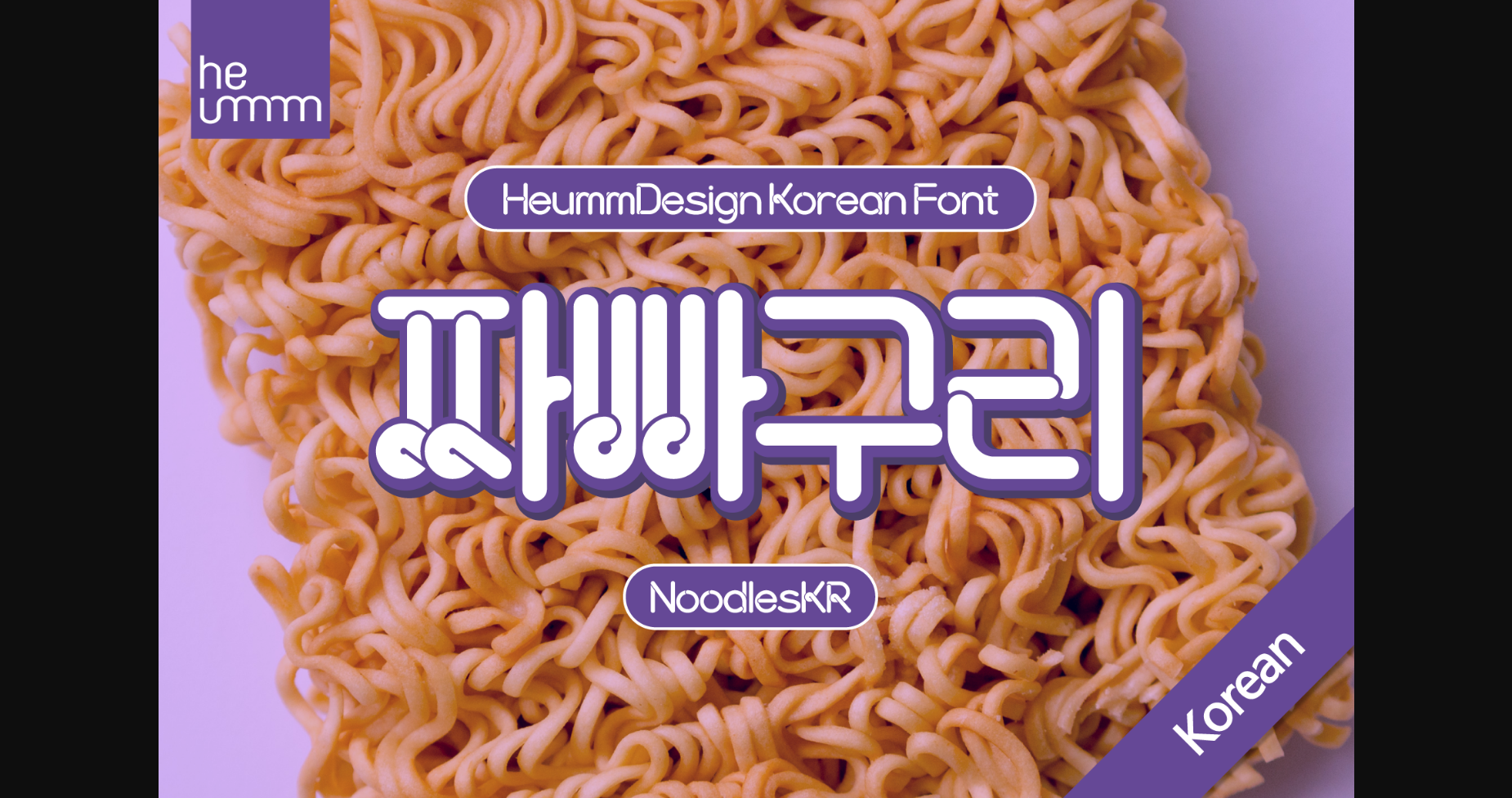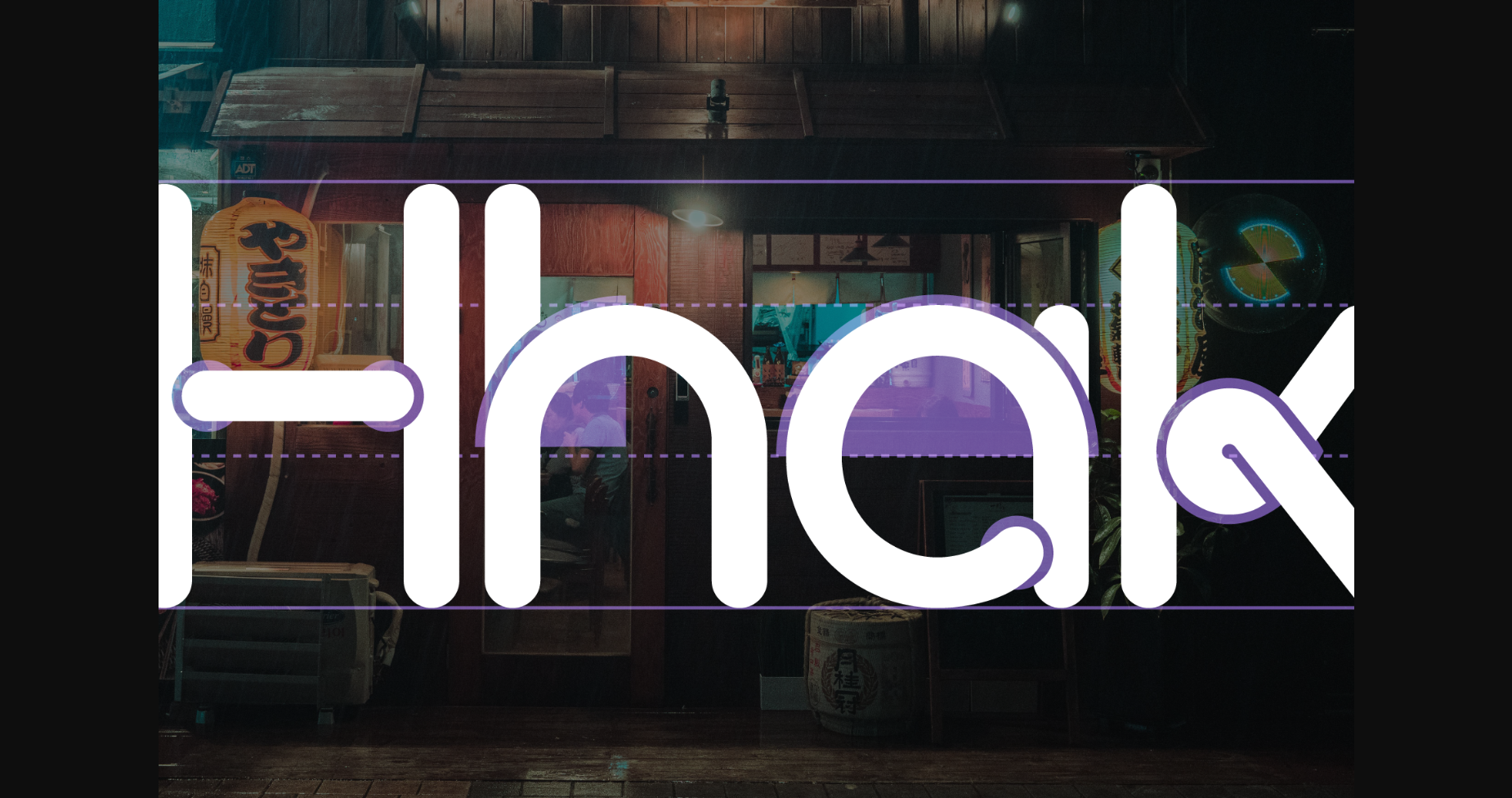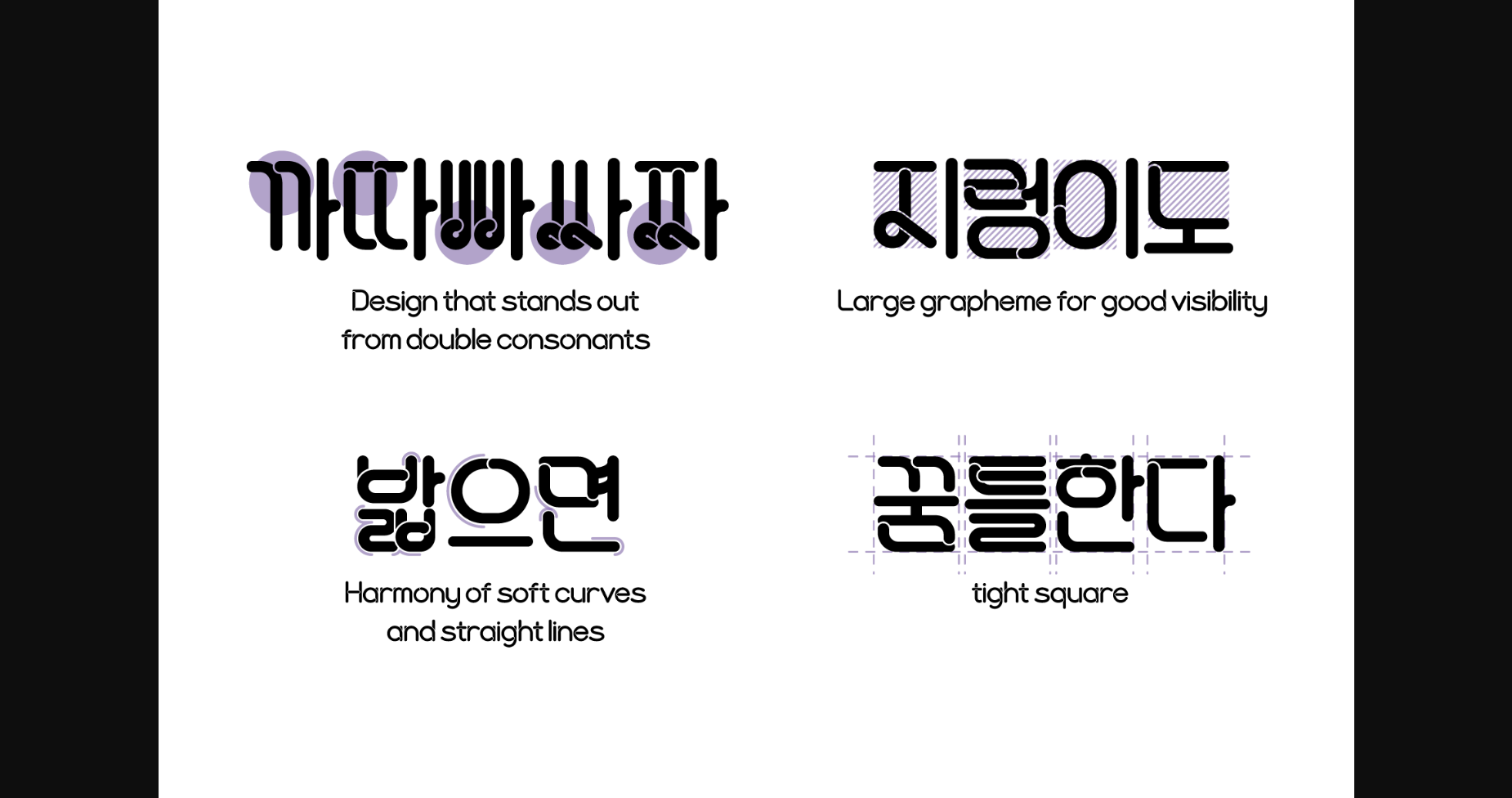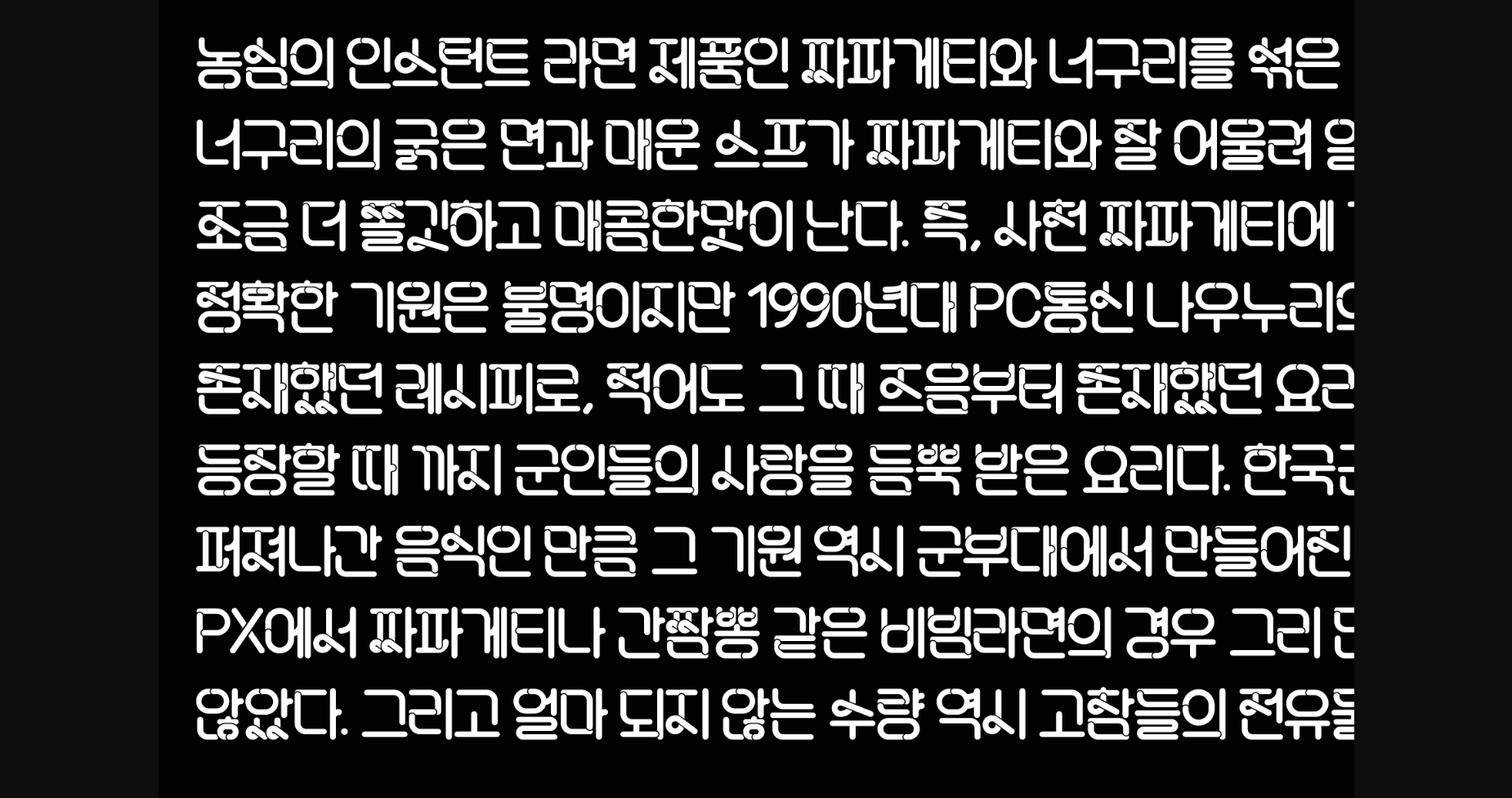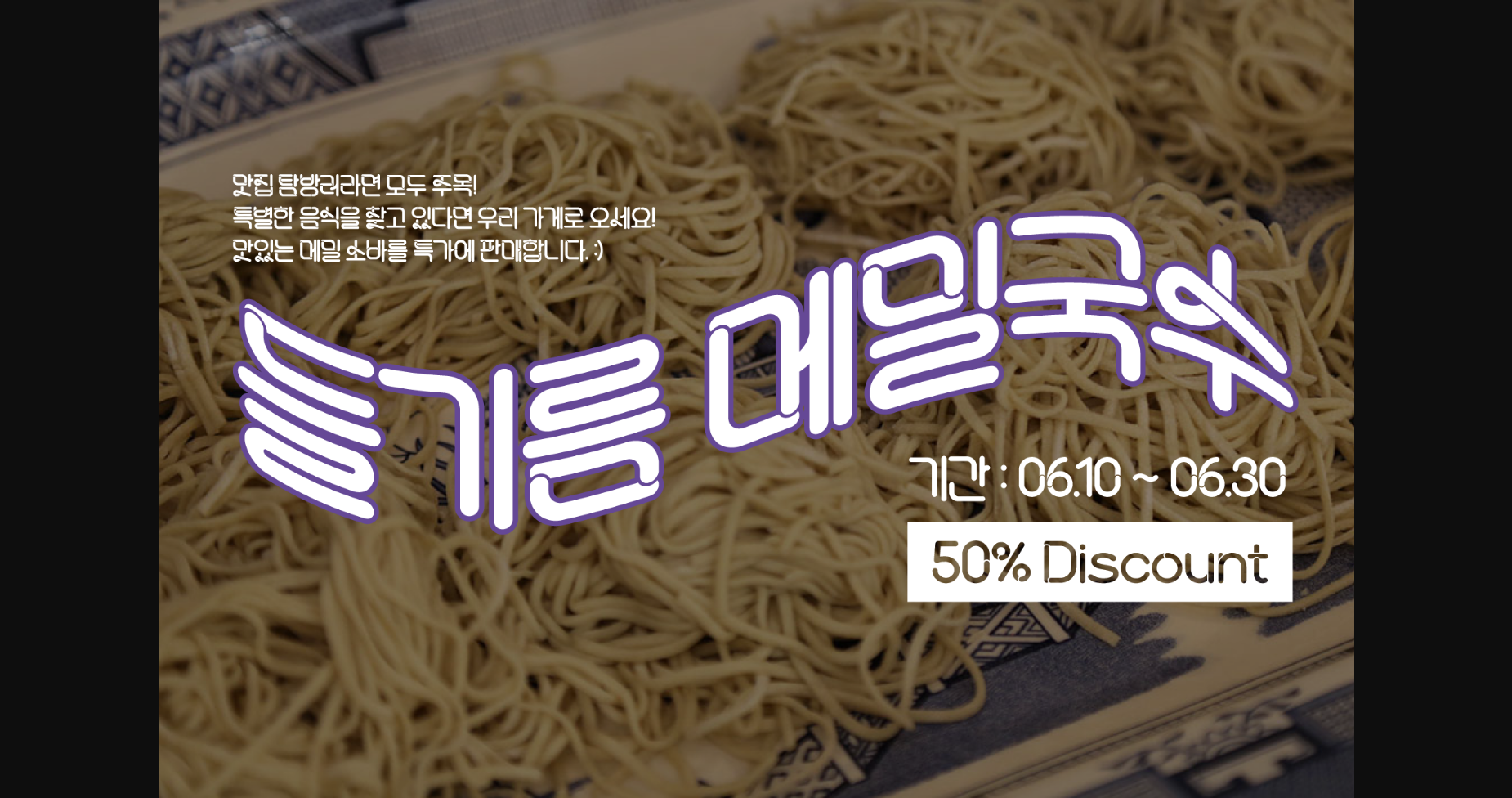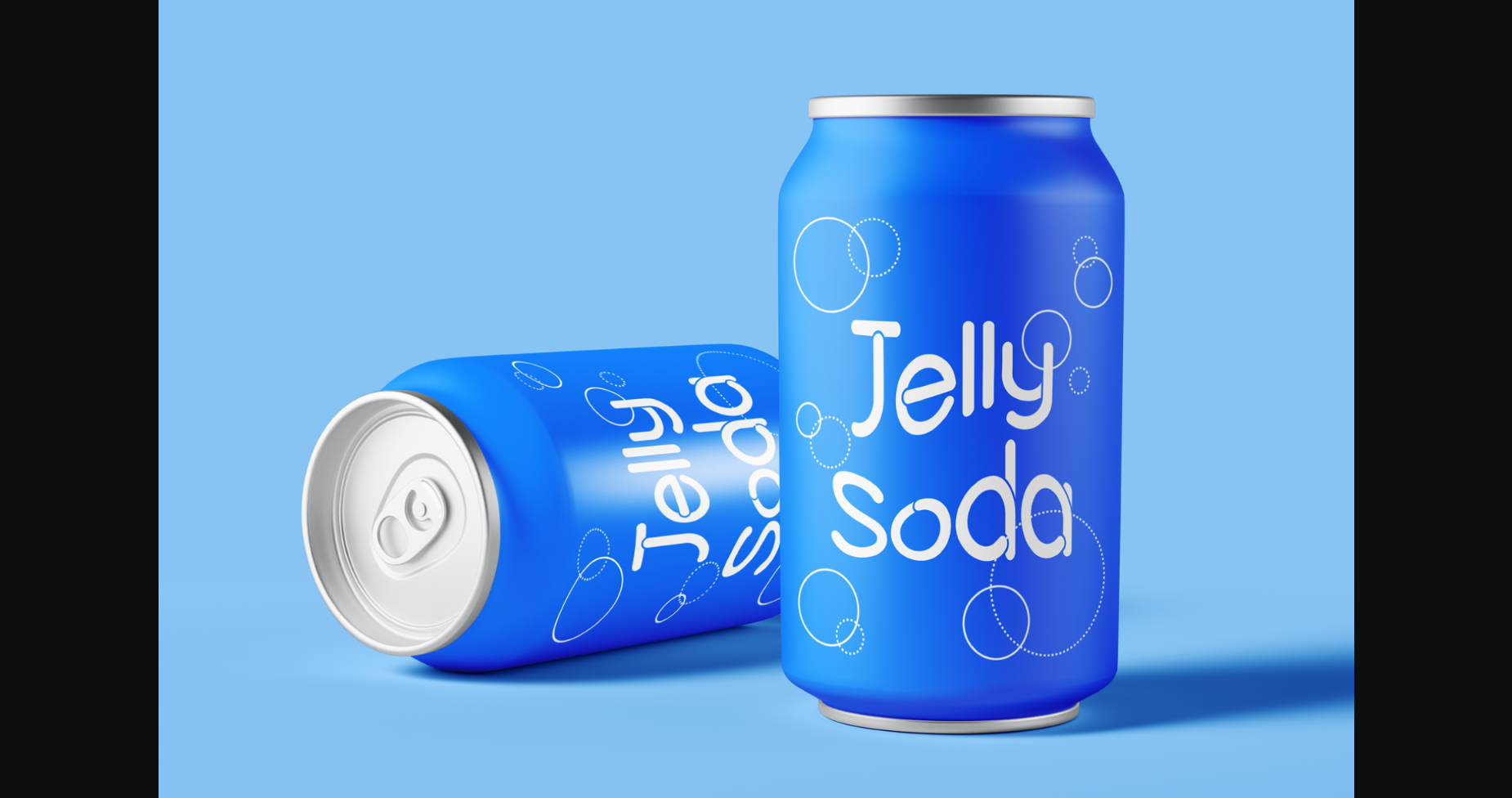
About Noodle Kr Font
Noodle KR is a stencil-type font designed for drawing with one brush and writing in stroke order. It is composed of a large grapheme for good visibility, and fine curves are added to the shape based on straight lines to create a soft feel. In particular, it is a full-bodied square font where personality is felt in double consonants.
Noodle KR includes Korean.